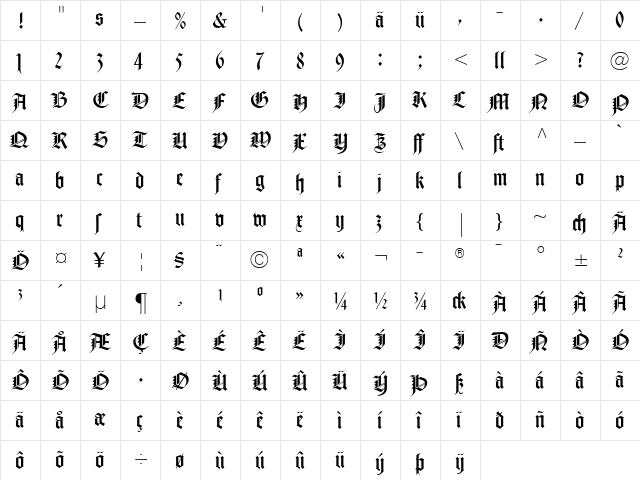
NotreDame LT RomanDfr Regular
Design Context for NotreDame LT RomanDfr Typeface
NotreDame LT RomanDfr is a composed and adaptable typeface that performs quietly and consistently across a wide range of design contexts. Its slender proportions lend an understated elegance to any composition.